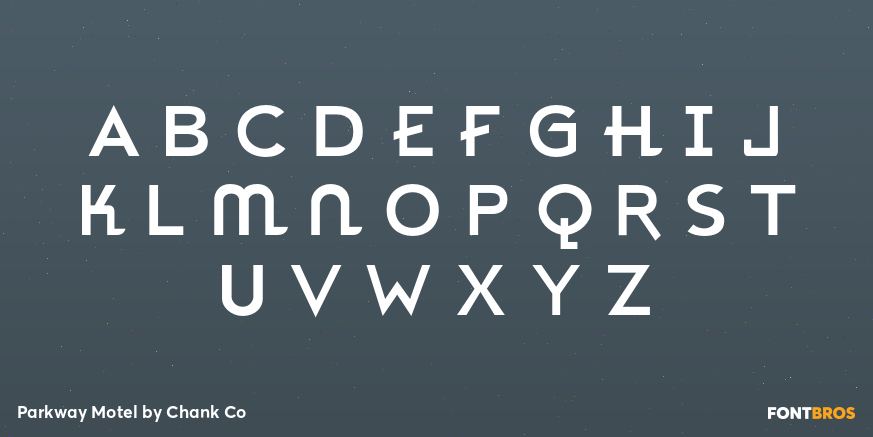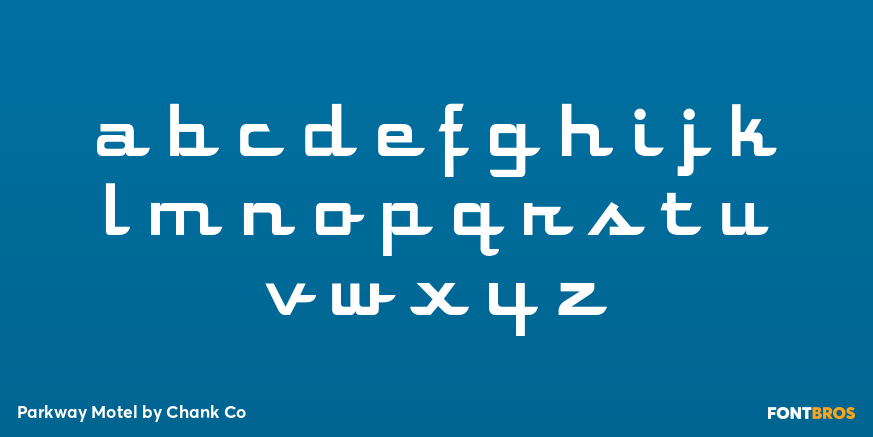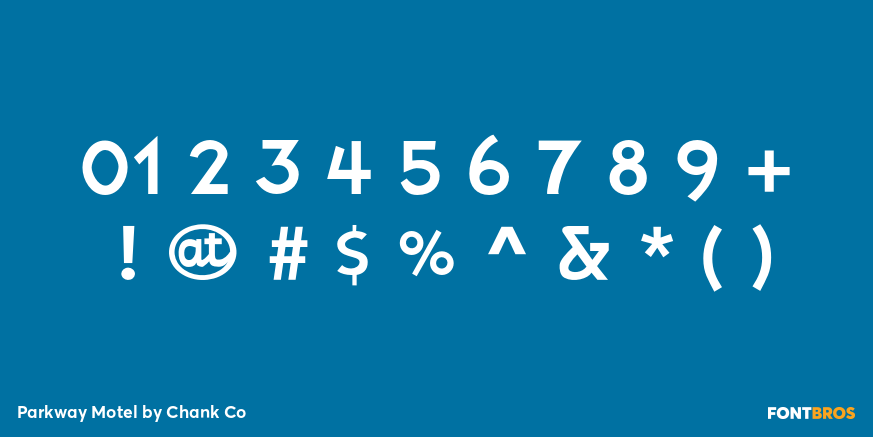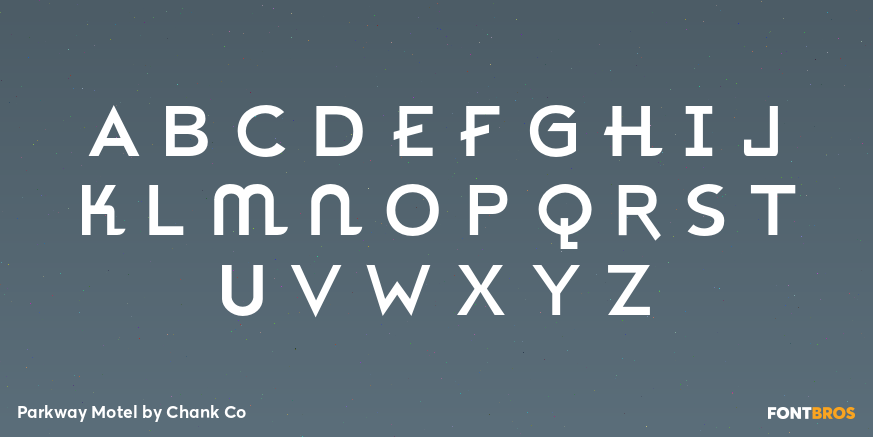
Parkway Motel
Font Family by Chank Co
Parkway Motel was inspired the Parkway Theater marquee in South Minneapolis and the abandoned hotel signage along a strip of U.S. highway running from Tallahassee to Tampa in Florida. A classic retro font, Parkway Motel speaks of nostalgia and Americana.